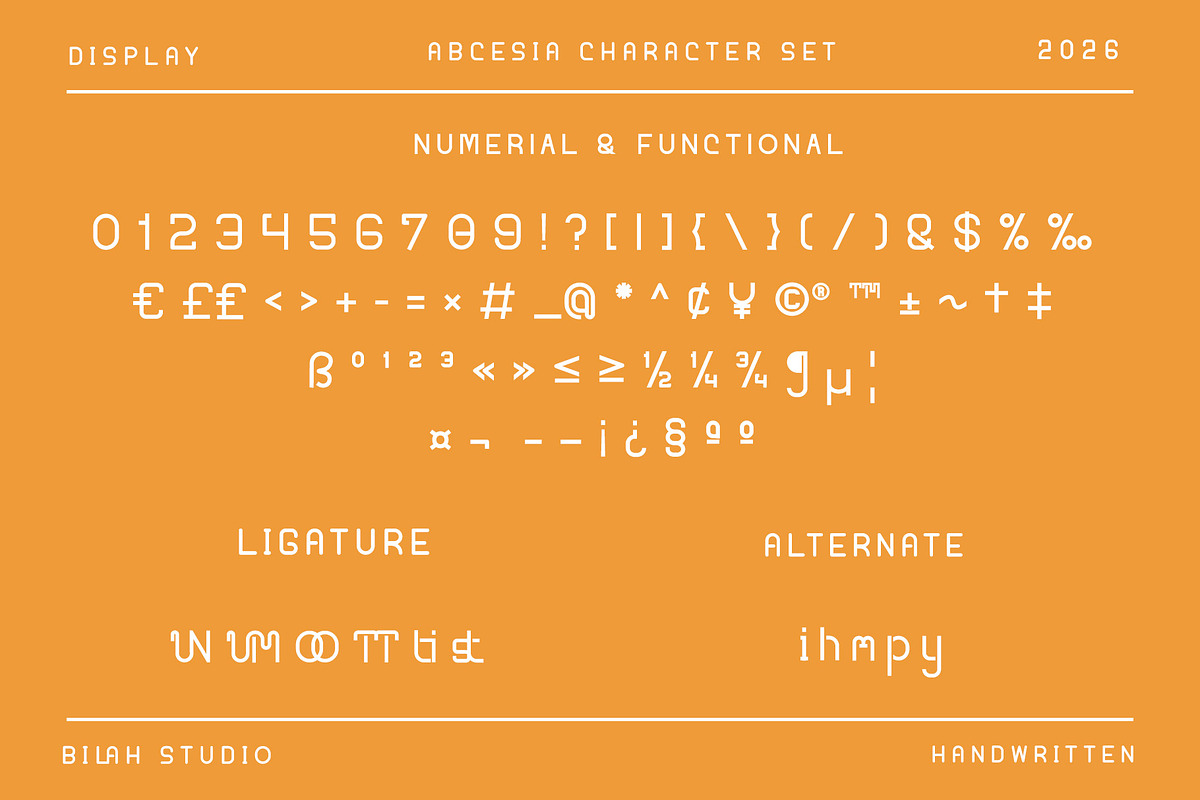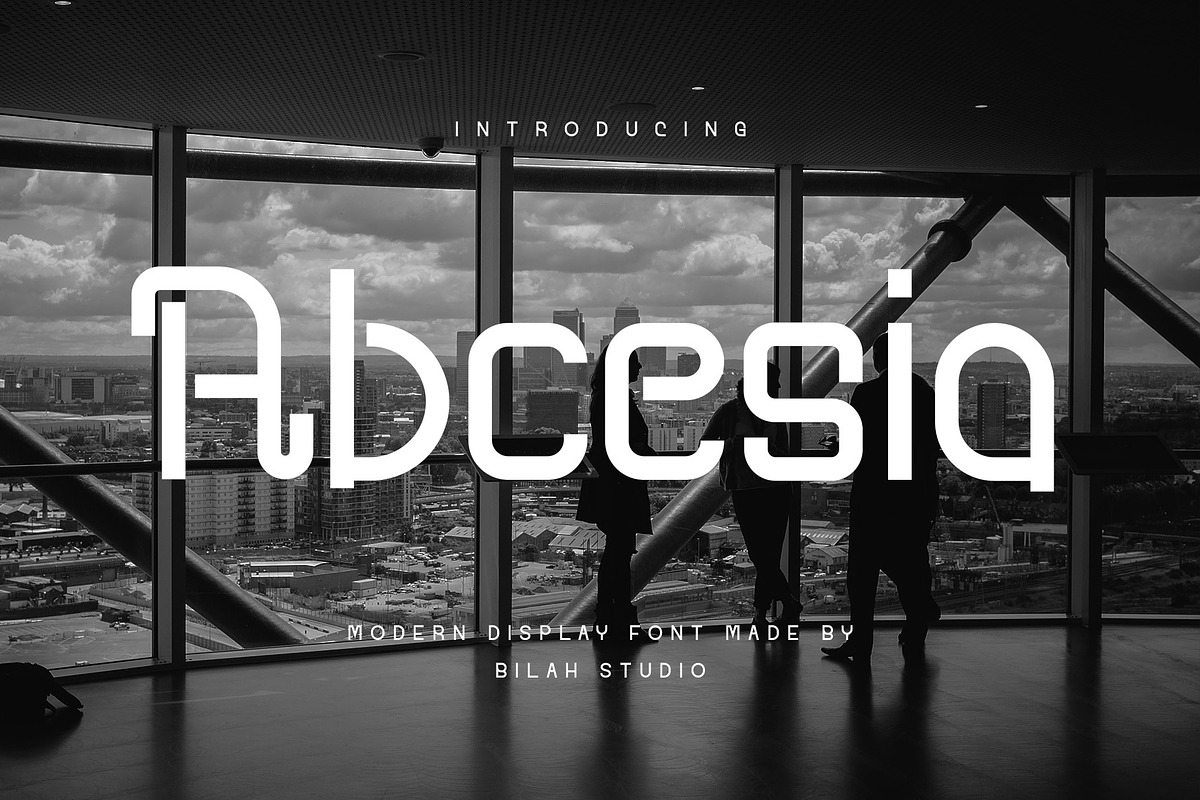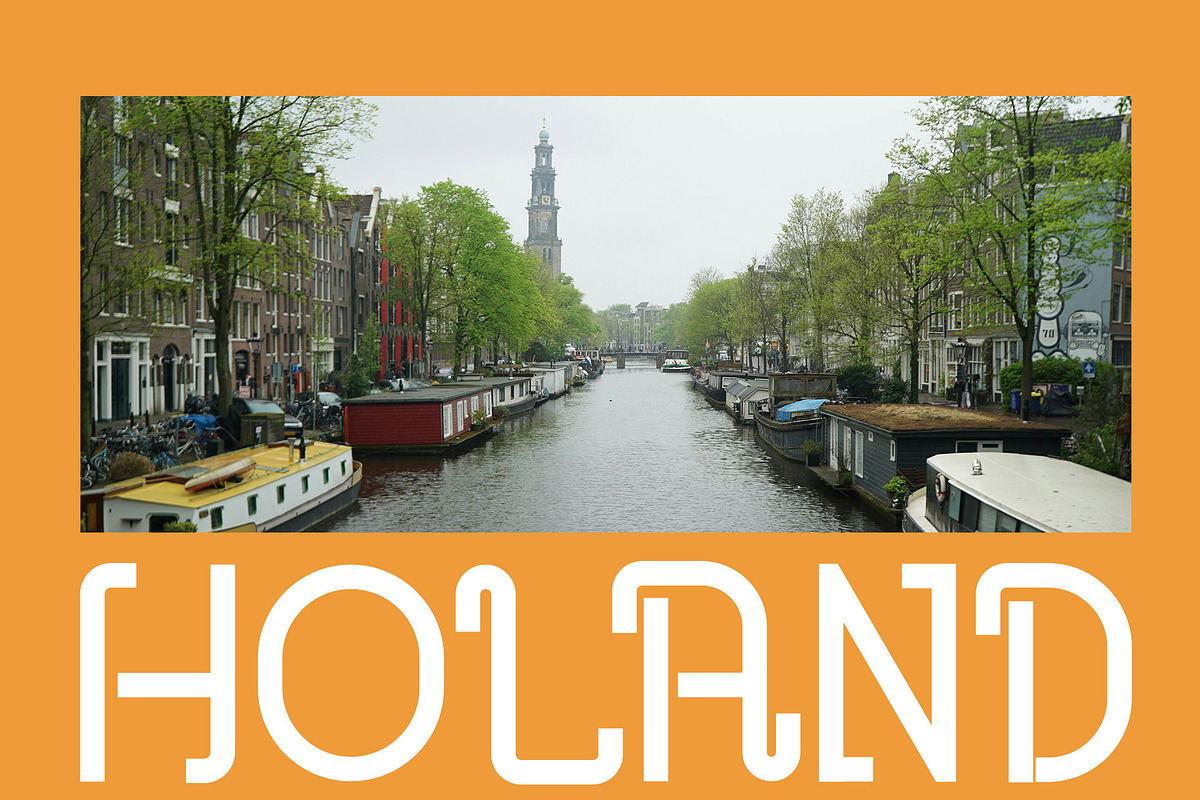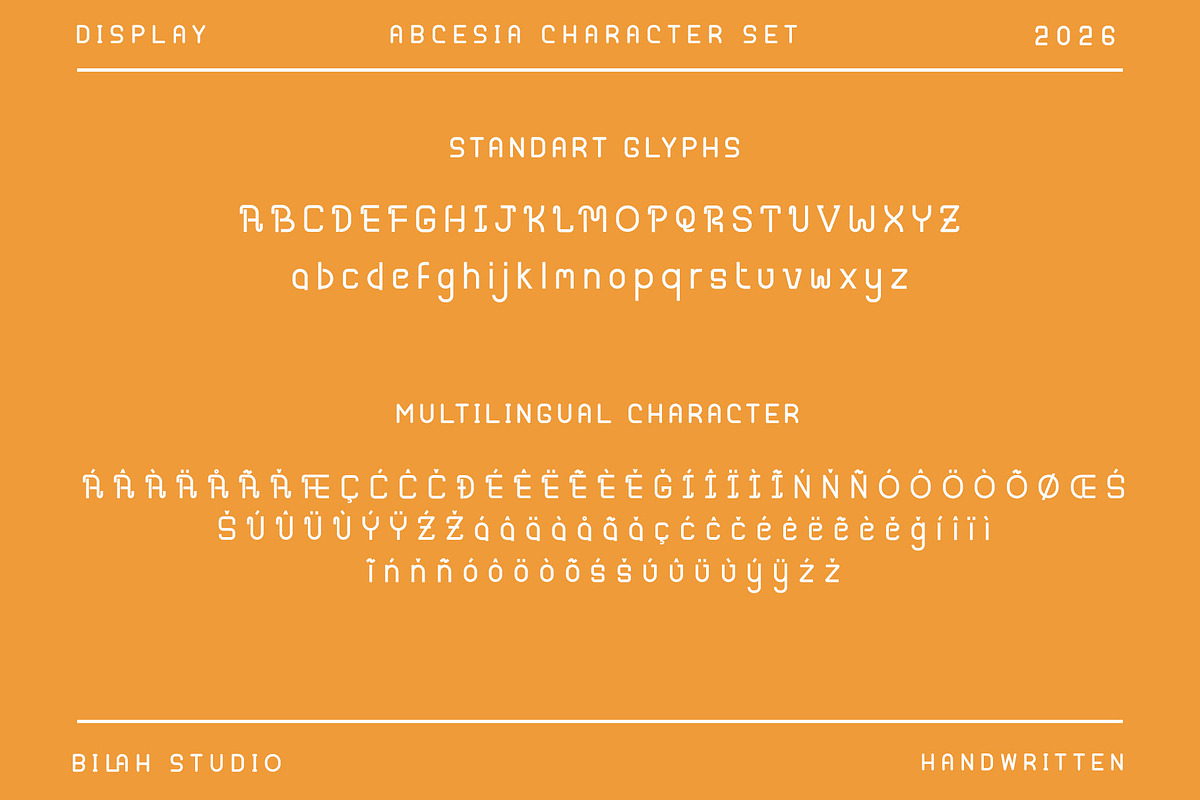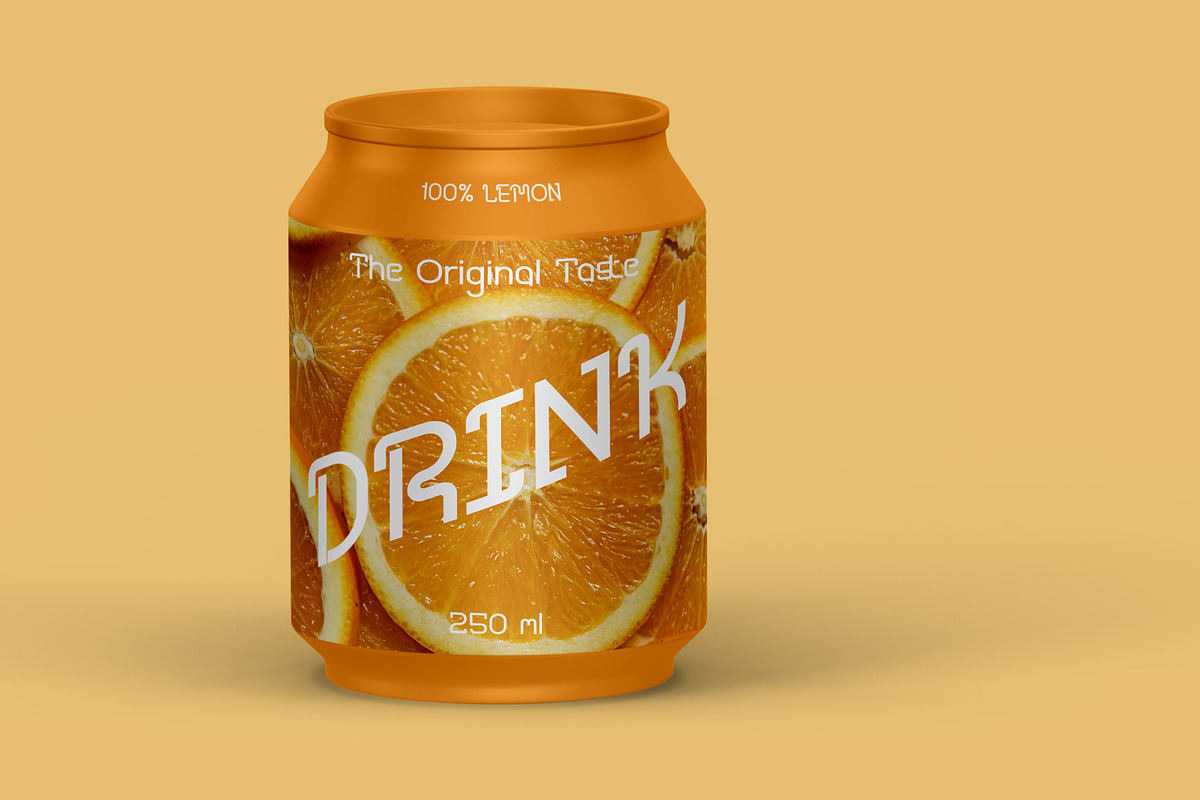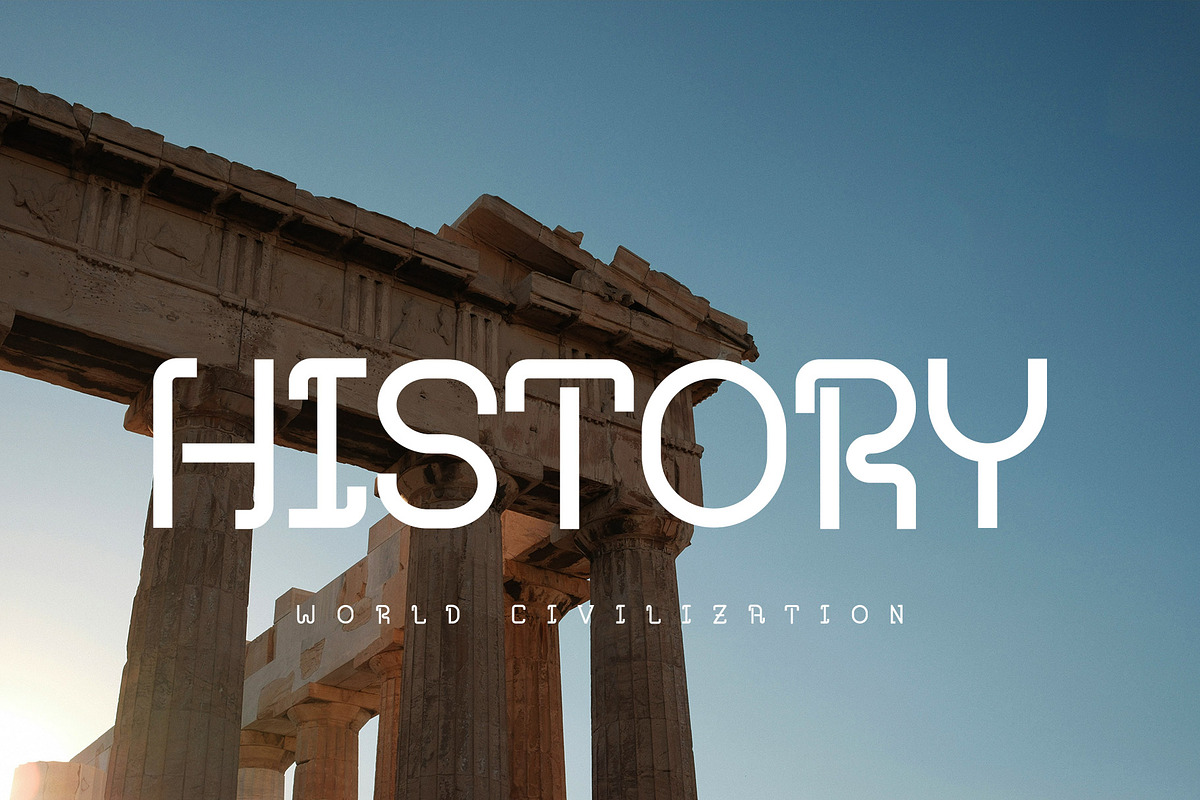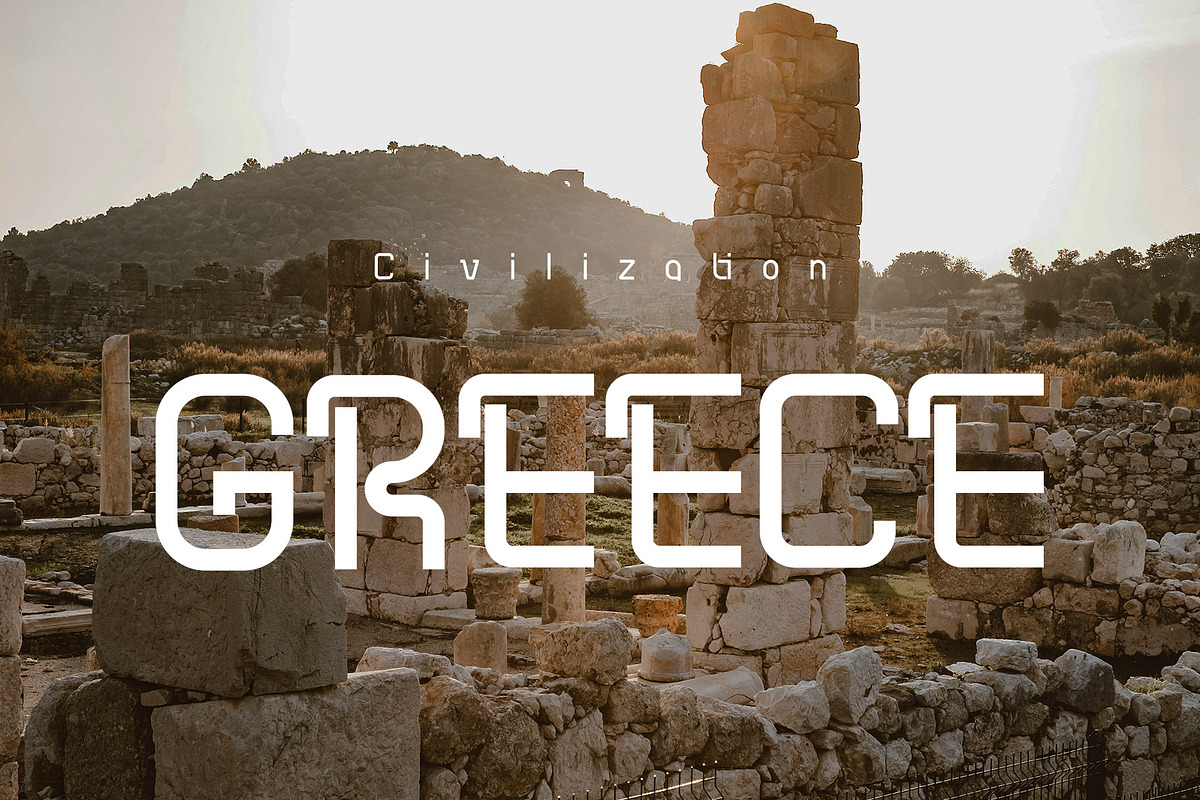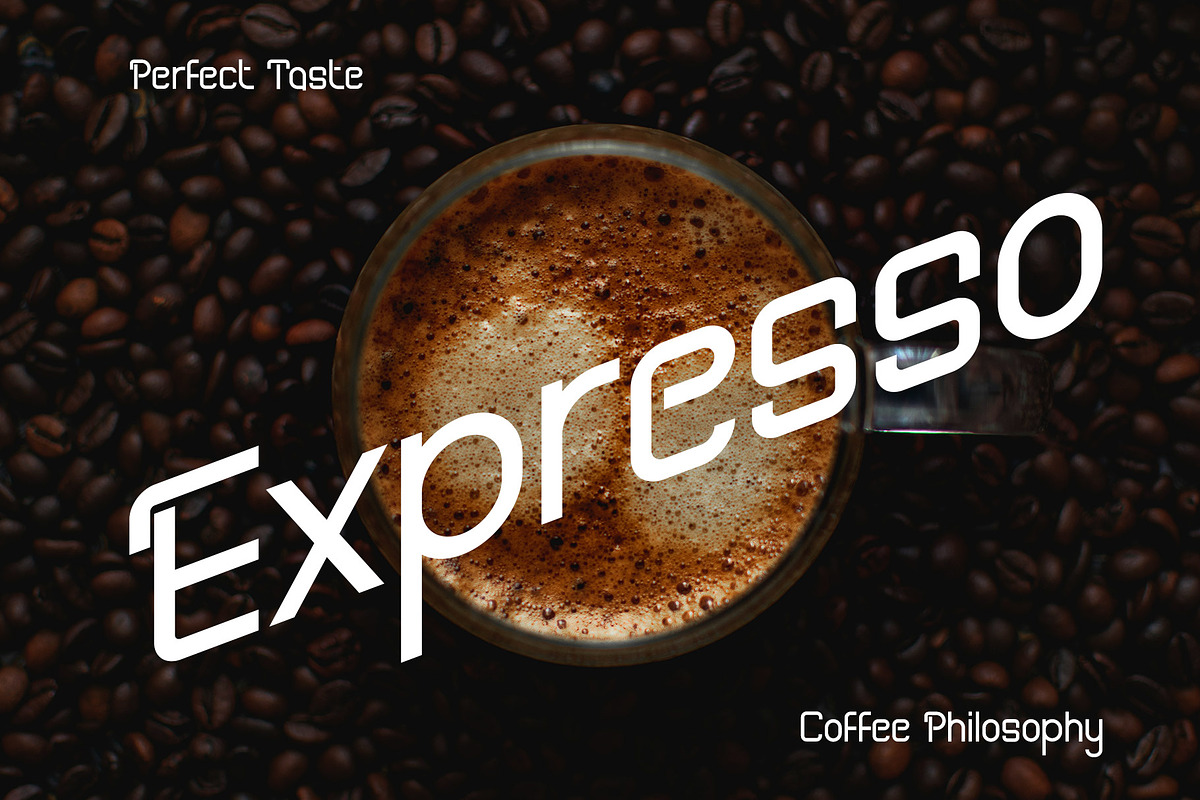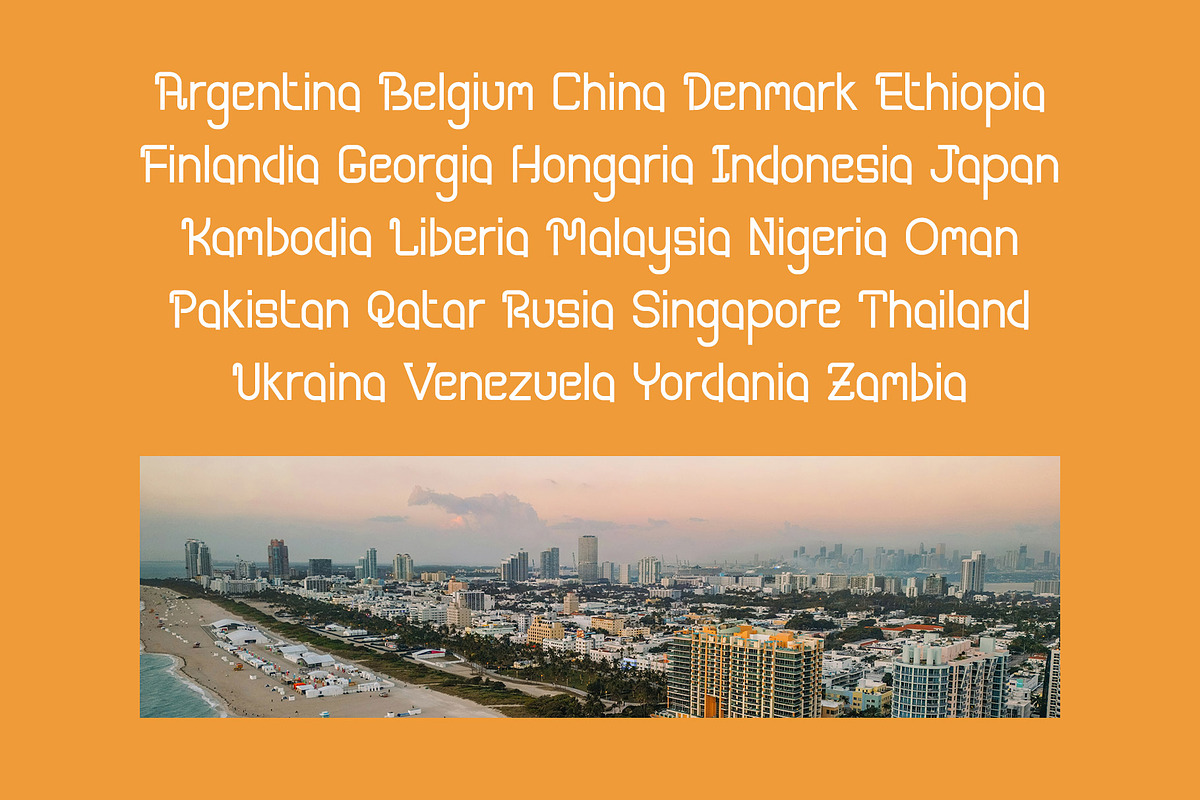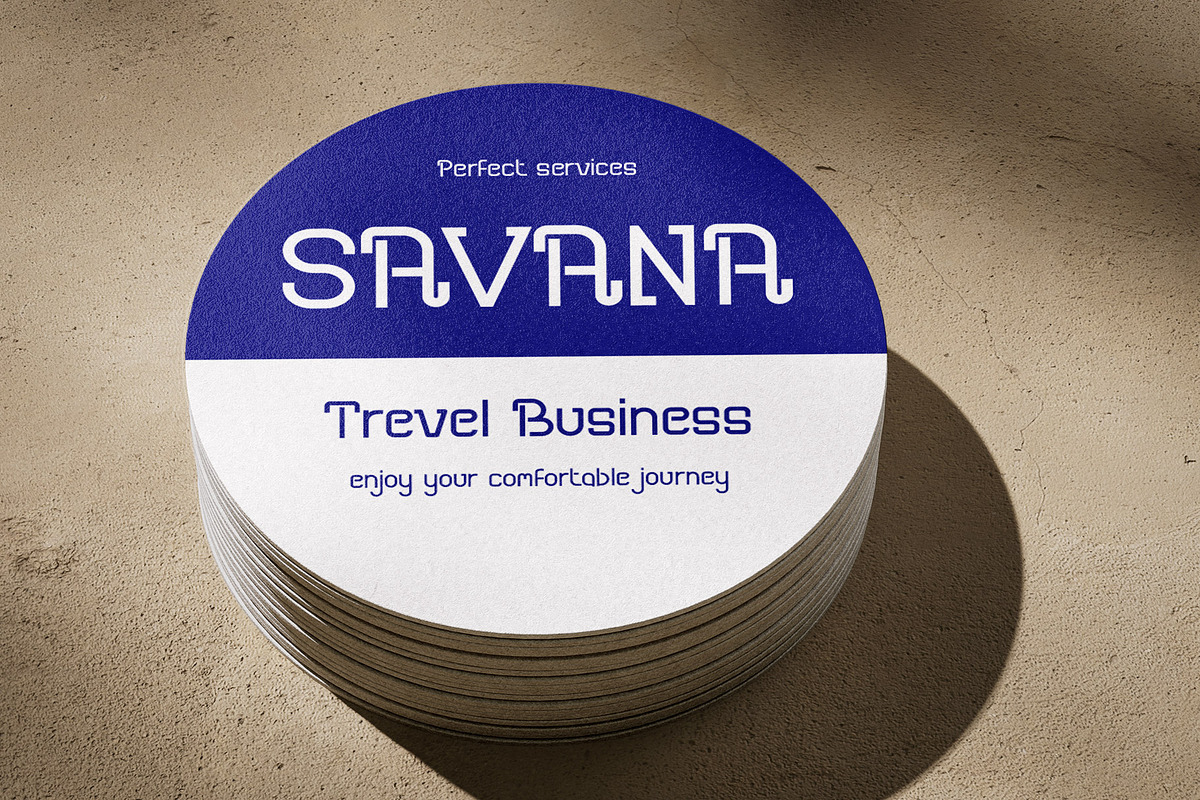
Abcesia - Display Vintage
Abcesia is a vintage-inspired font inspired by the moods of the past, with geometric details and deeply rooted in medieval writing principles.
Abcesia is a perfect choice for any creative endeavor, elegant lifestyle design, such as education, logos, advertisements, photography watermarks, stationery, branding projects, displays and magazines, invitations, corporate branding, product design, labels, business projects, and many other projects with a touch of elegance.
- Standart letter A-Z and a-z